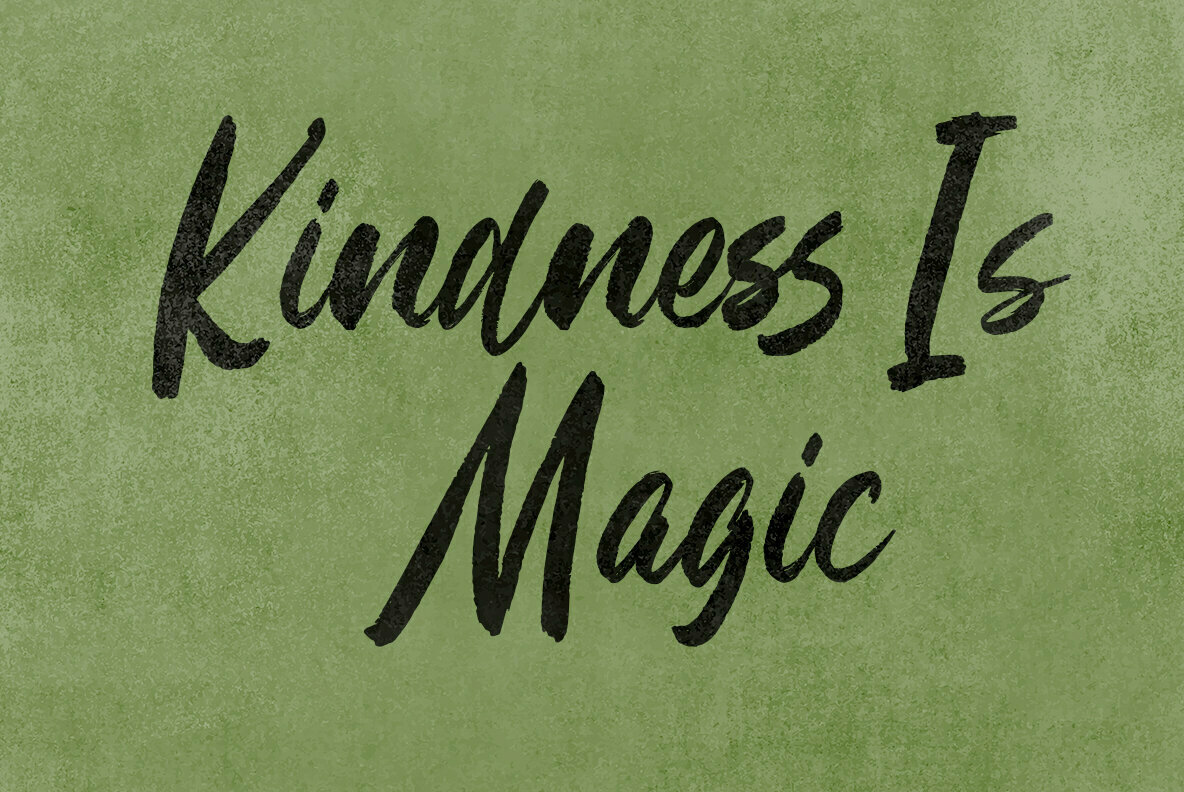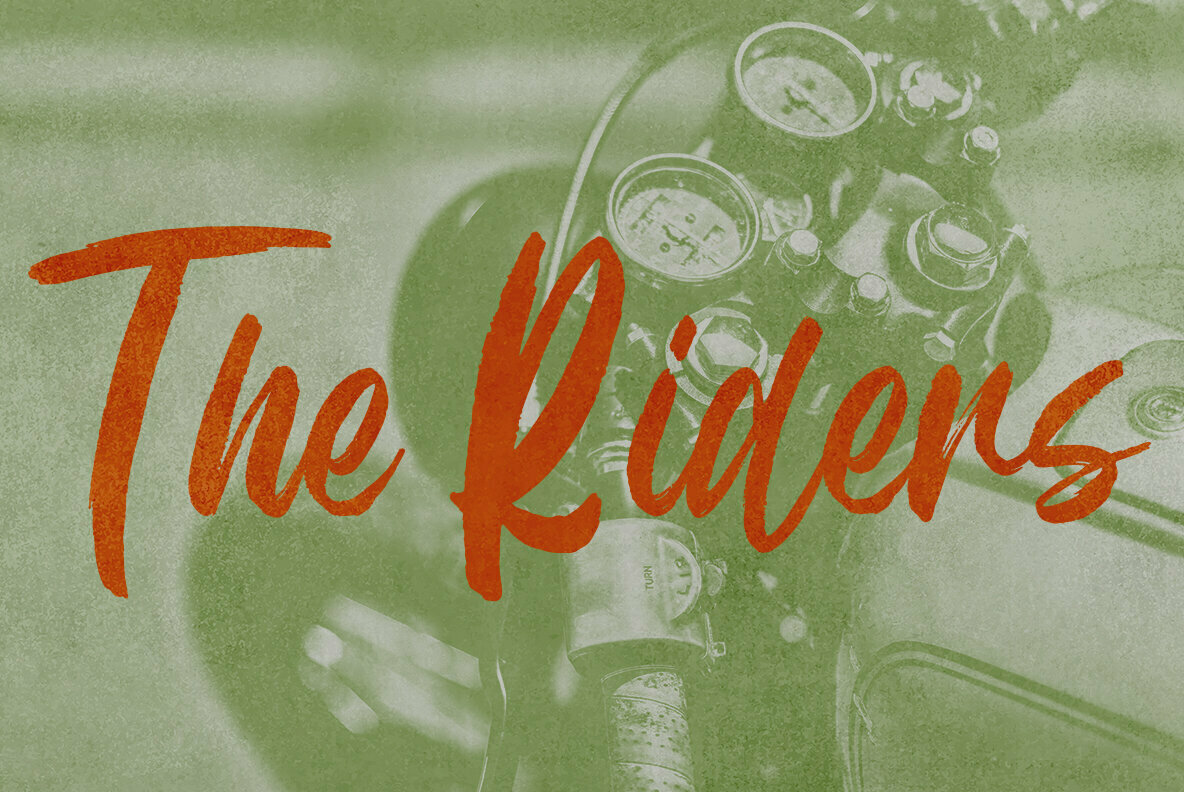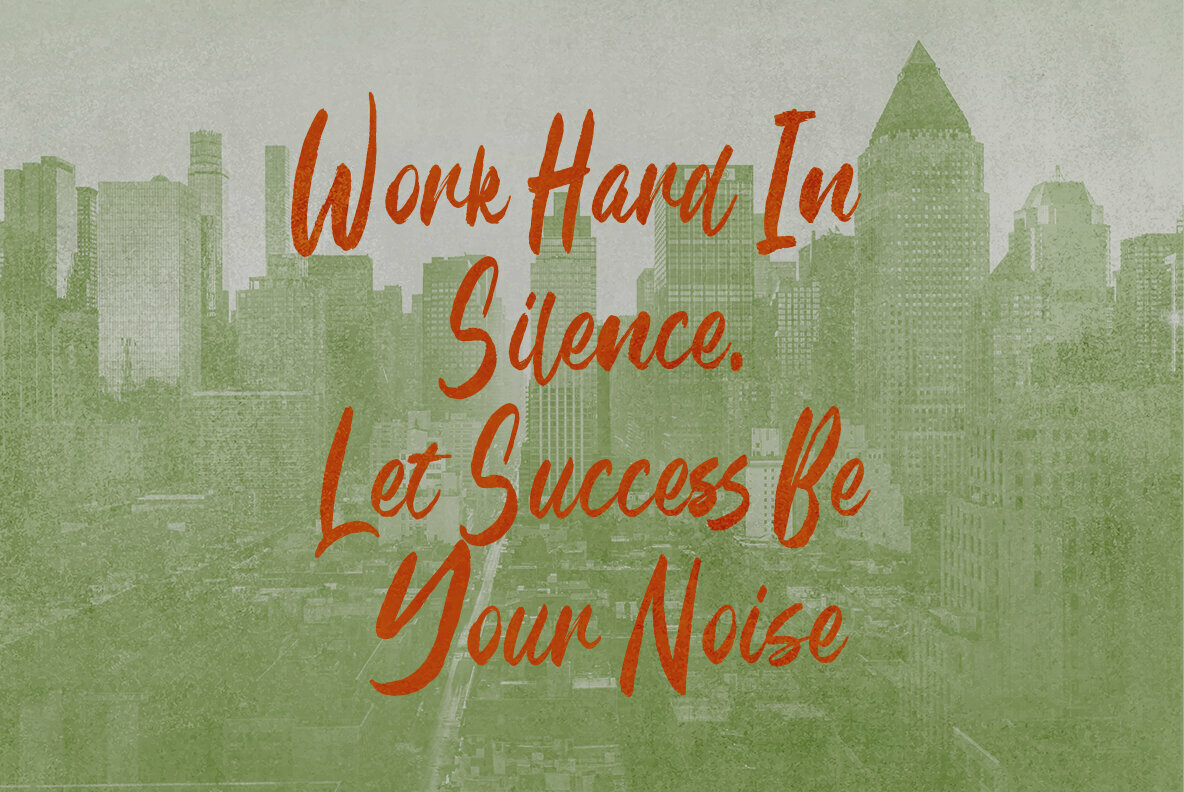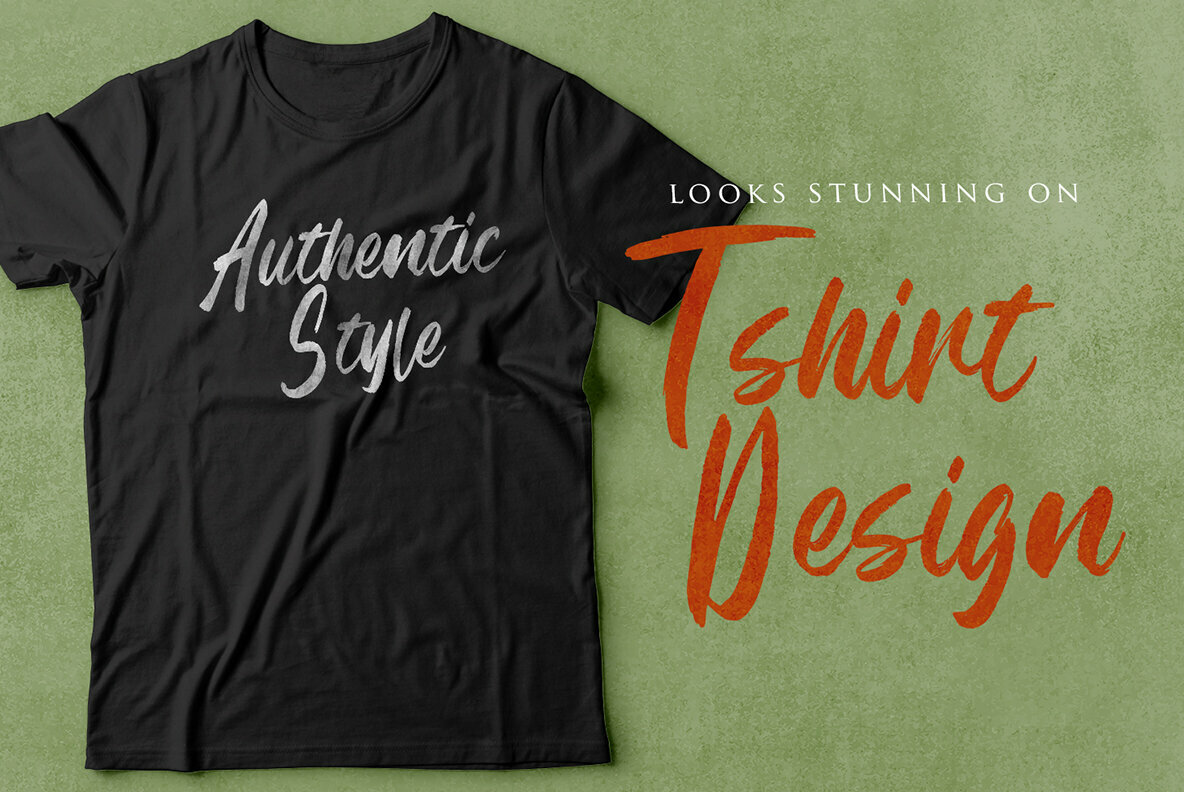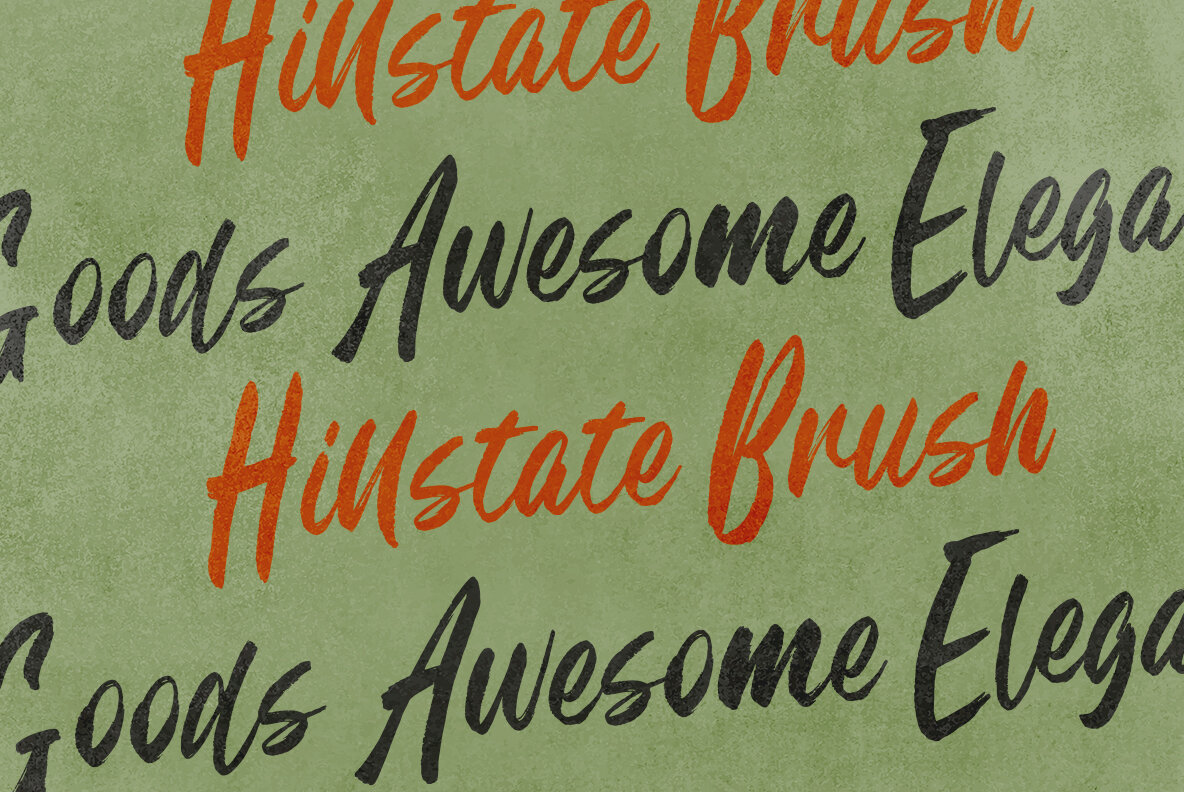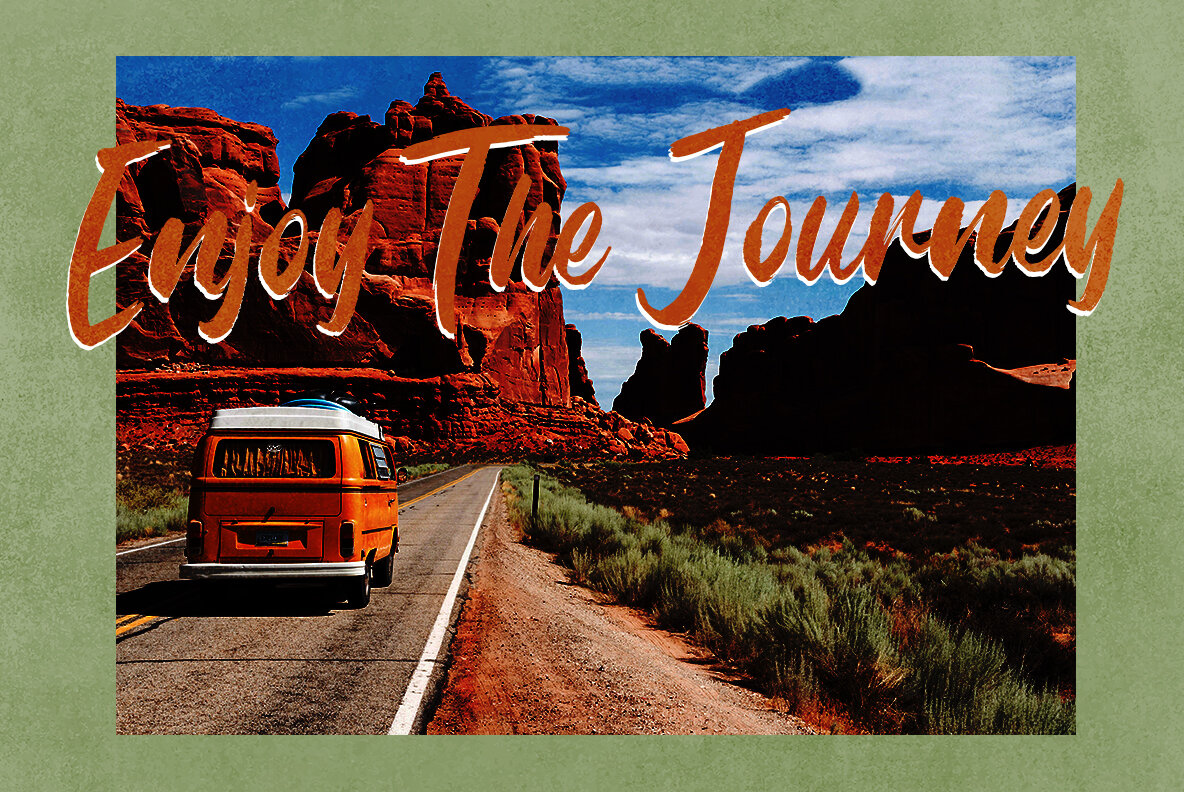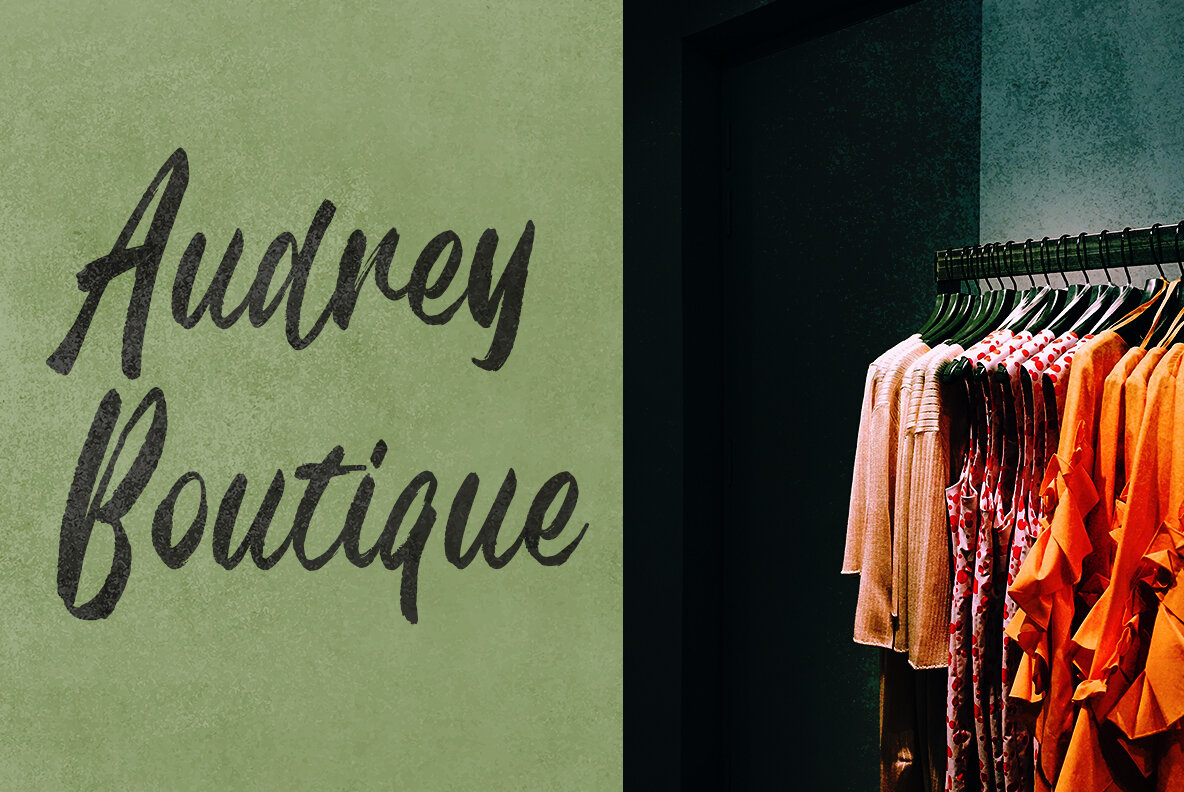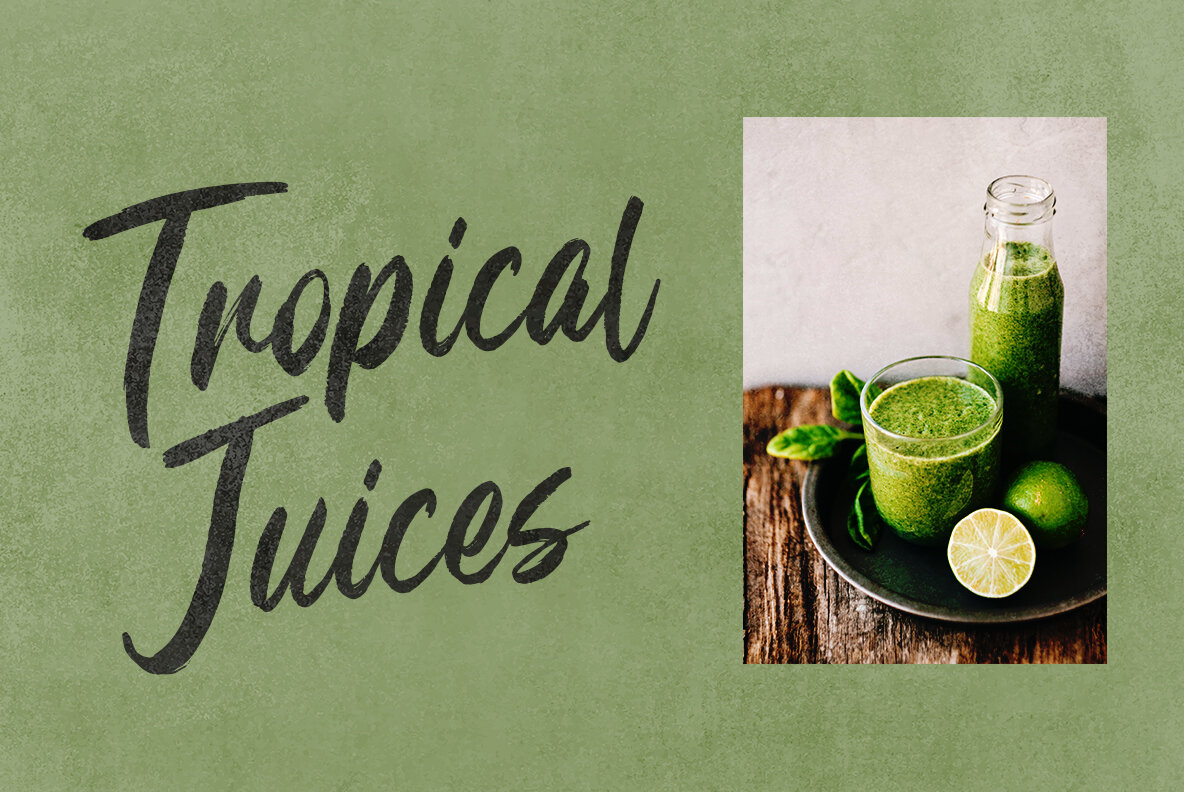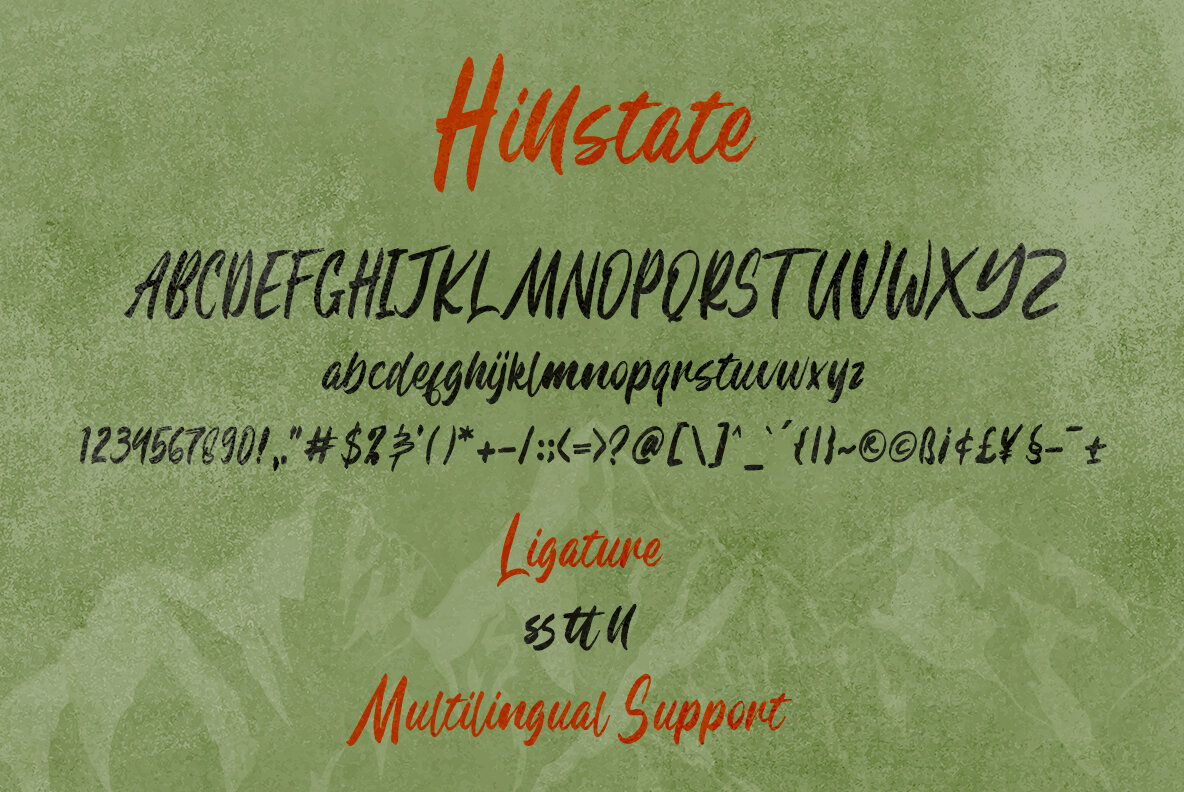
Hillstate Font
Hillstate
Hillstate emerges as a font crafted with a natural style in mind, featuring a refined brush texture that lends a genuine aesthetic to any design project. Developed with meticulous attention to detail, this typeface promises artistic authenticity, catering to varied creative needs.Hillstate: Natural Brush Texture for Diverse Design Applications